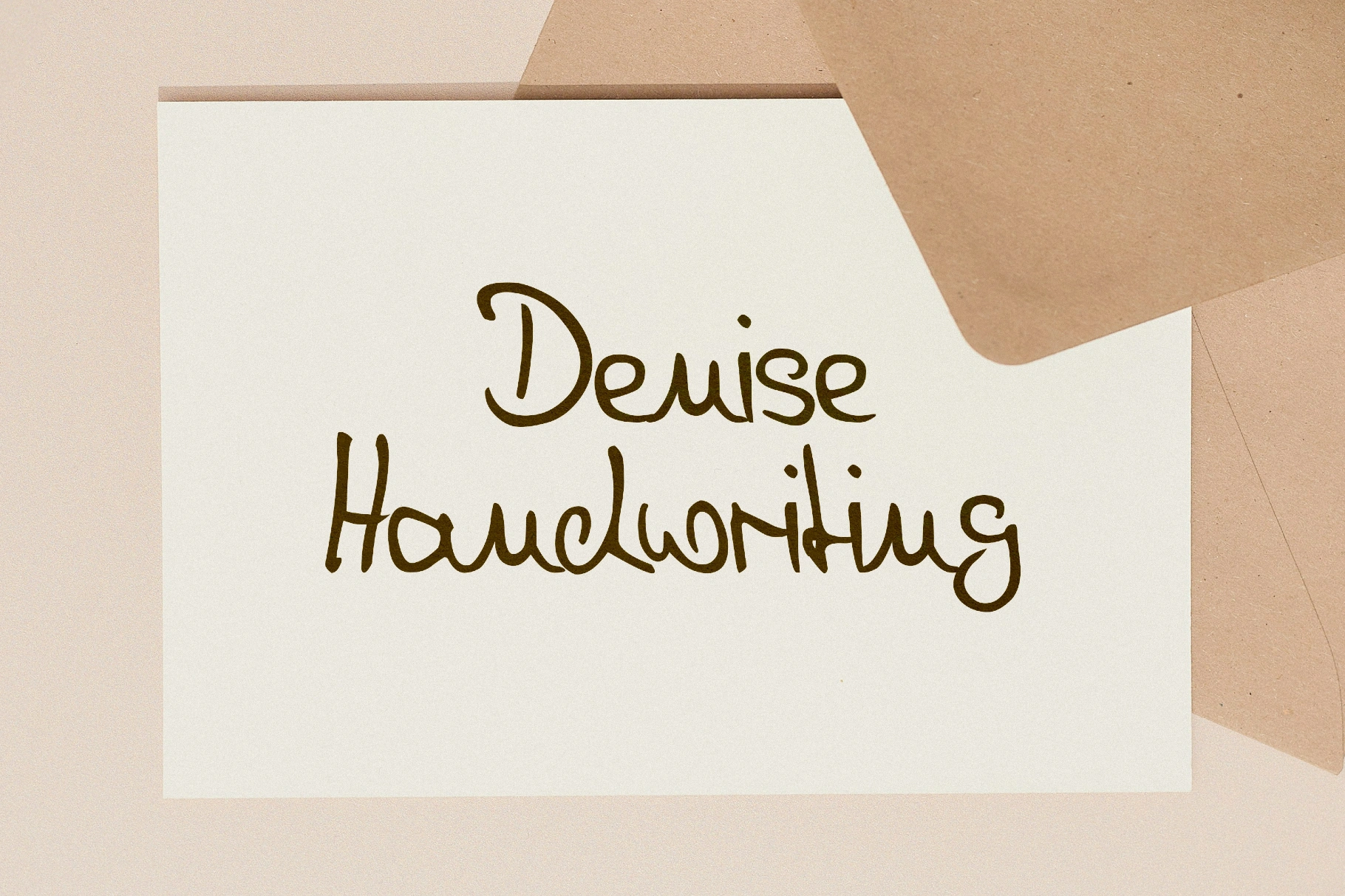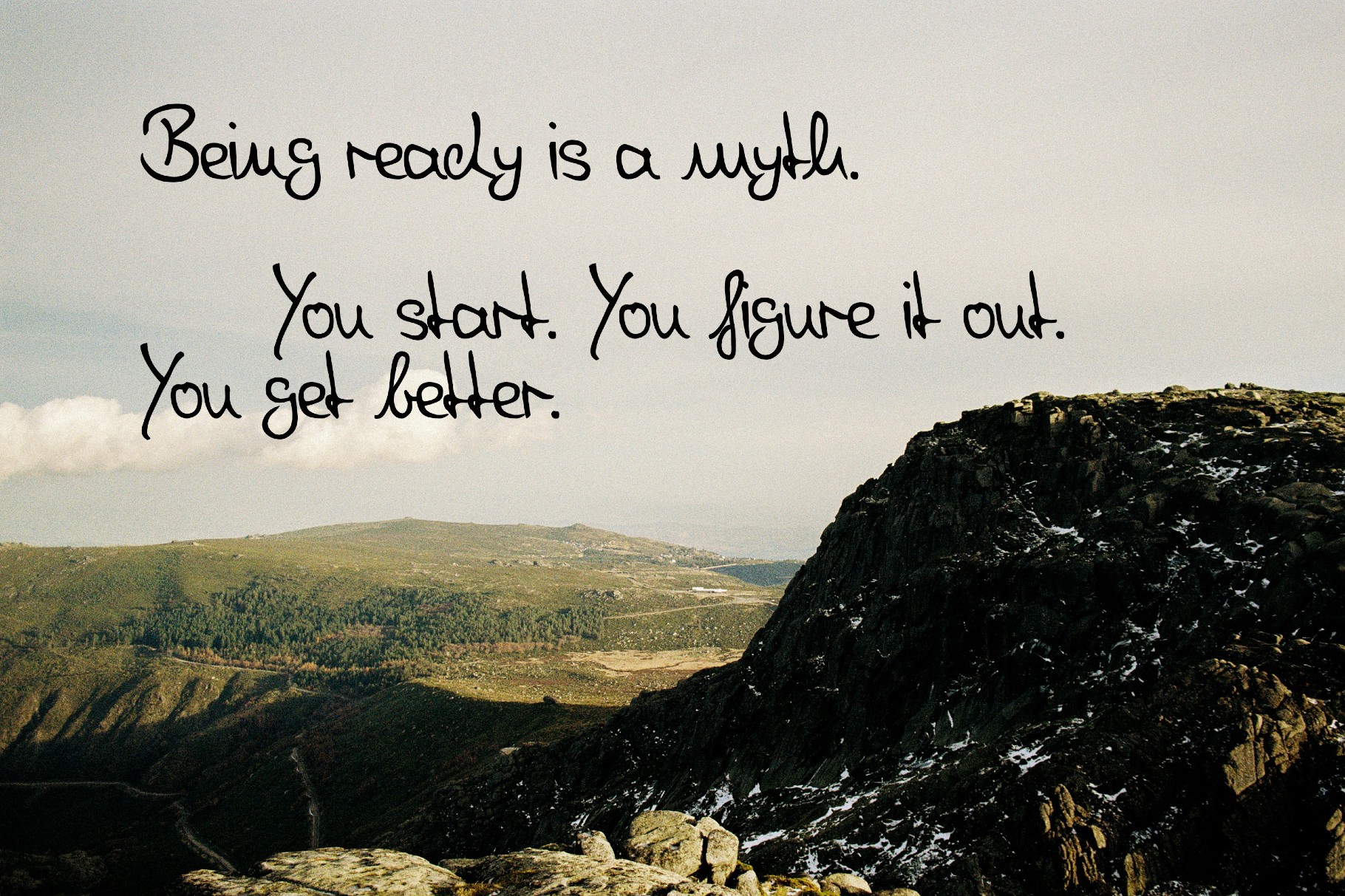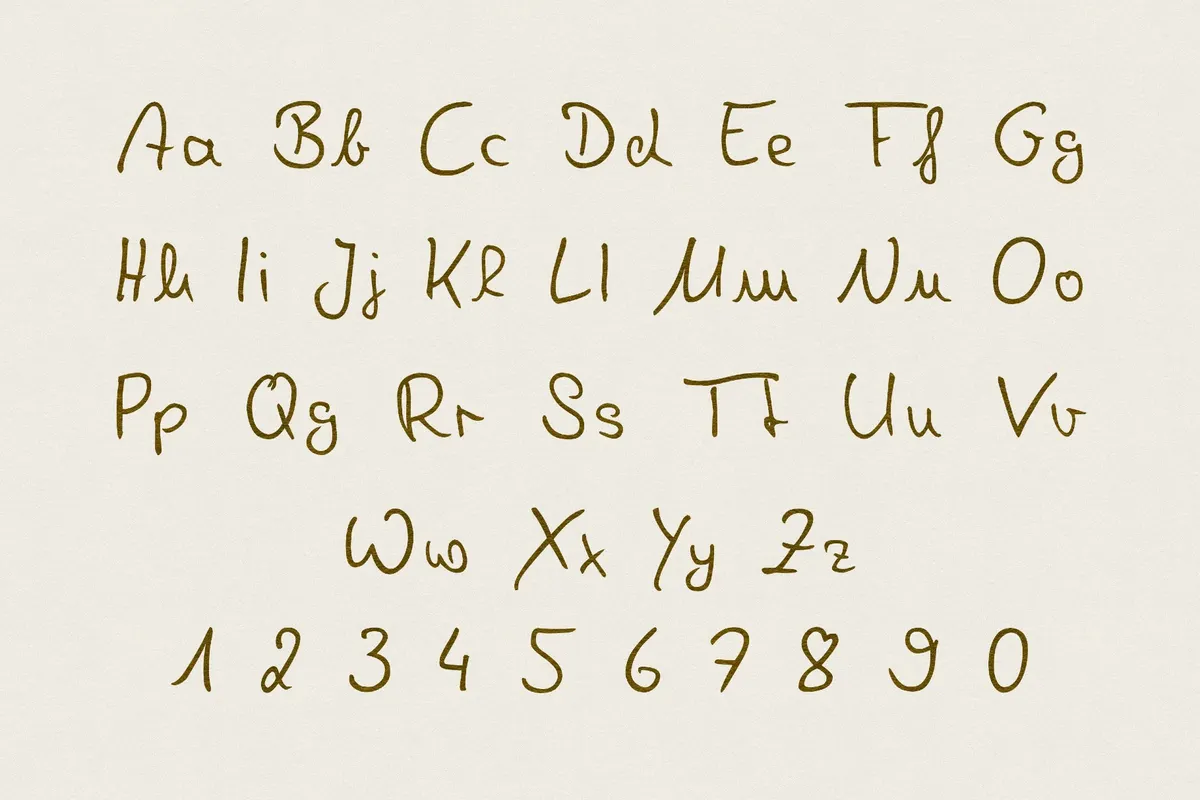
Denise Handwriting Font
Denise captures the easy rhythm of a personal journal and the casual charm of scrapbook lettering. The relaxed, rounded signature font with uneven stroke rhythm and friendly quirks is a great fit for planner designs, kids’ packaging, casual product labels, app UI accents, greeting cards, wedding invitations, lifestyle branding, Instagram quotes, product packaging, and blog headers.
• Uppercase and lowercase letters.